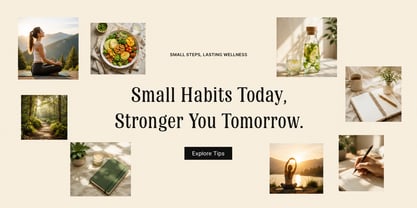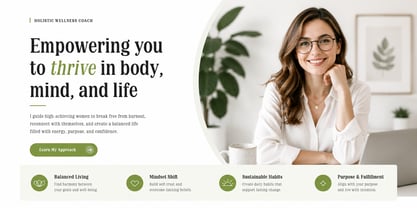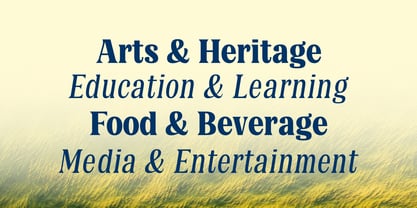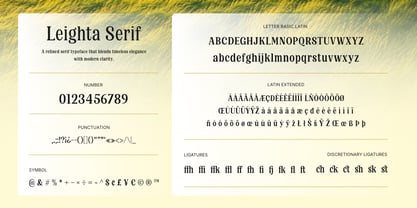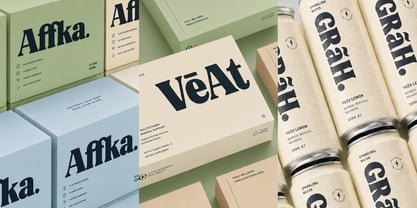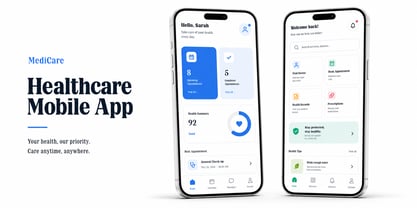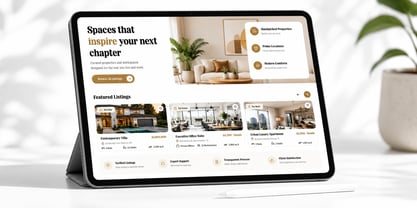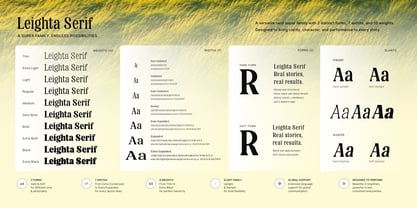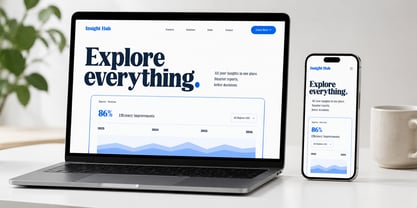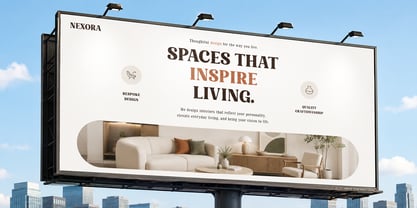
Leighta
The Leighta Font Family was designed by Azzura . and published by Akbartype. Leighta contains 282 styles and family package options. More about this family
Soft
Hard
Leighta is a modern serif typeface that blends timeless elegance with a soft contemporary touch. Featuring refined high-contrast strokes, graceful proportions, and beautifully crafted serif details, it is designed to deliver a luxurious, artistic, and sophisticated visual presence. Perfect for premium branding, fashion editorials, packaging, logos, posters, and modern hero typography, Leighta performs beautifully at large display sizes while maintaining clarity and elegance across various design applications. With a character that feels both classic and fresh, Leighta brings a refined, expressive, and memorable aesthetic — making it an ideal choice for visual identities that aim to appear exclusive, stylish, and distinctive.